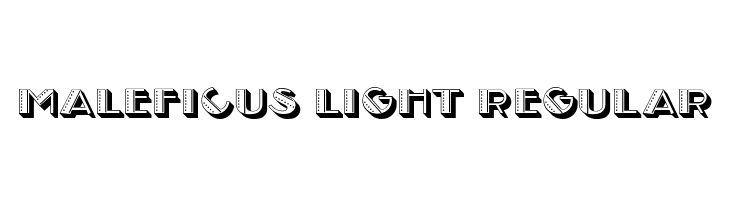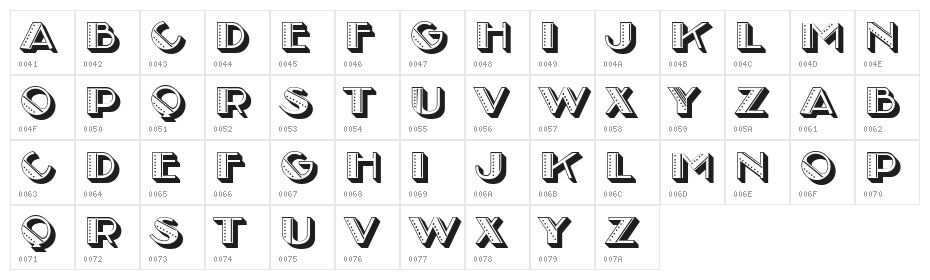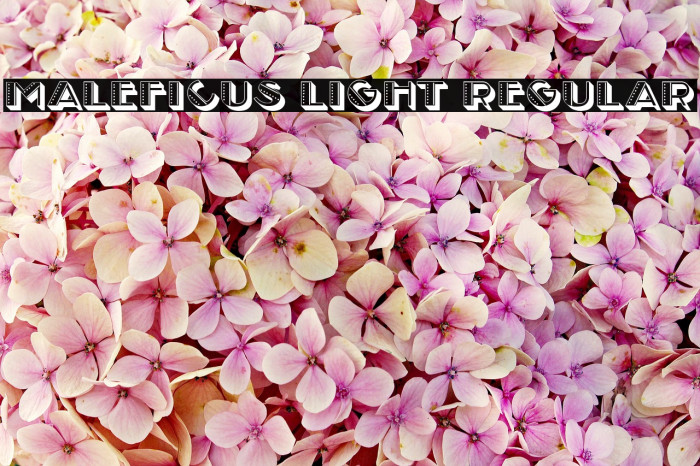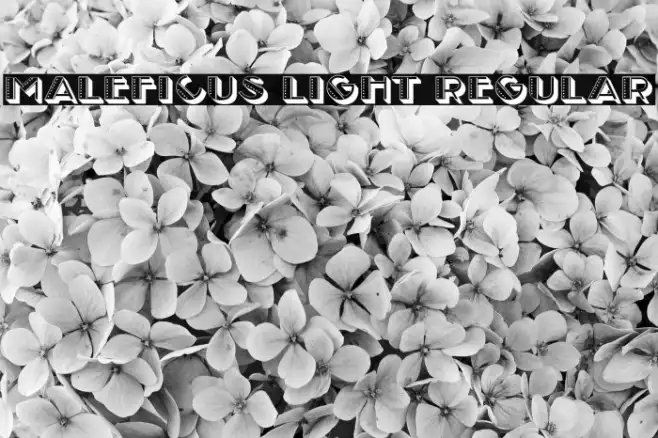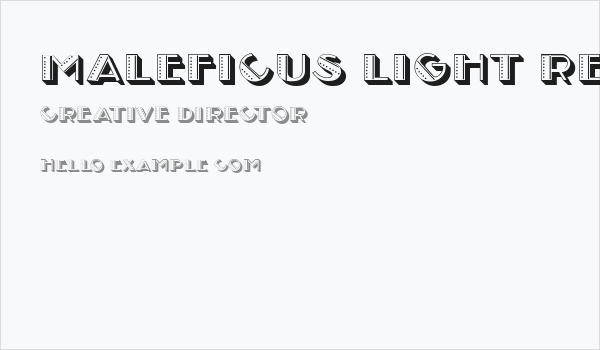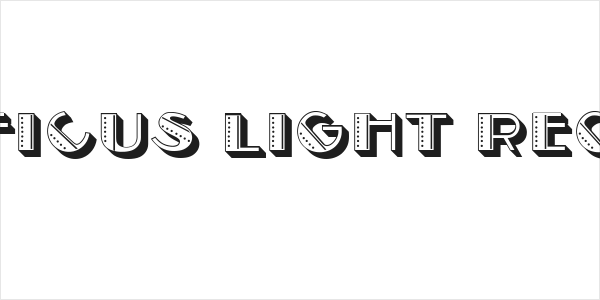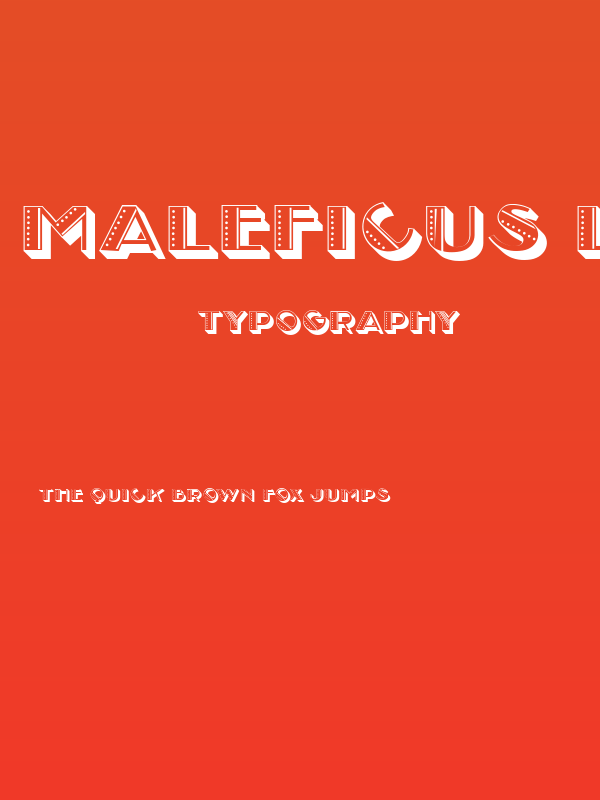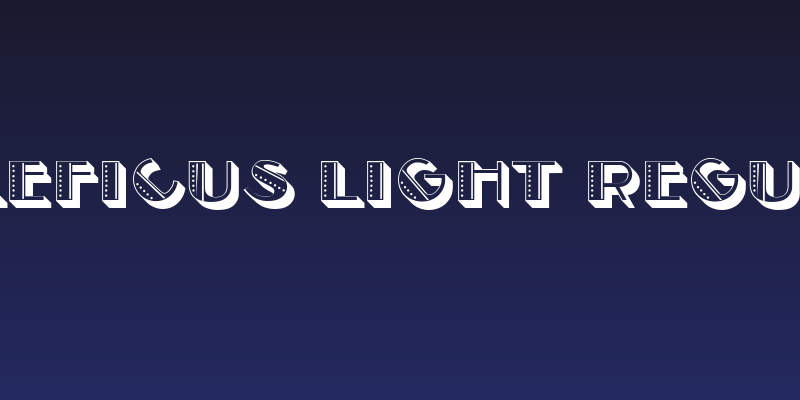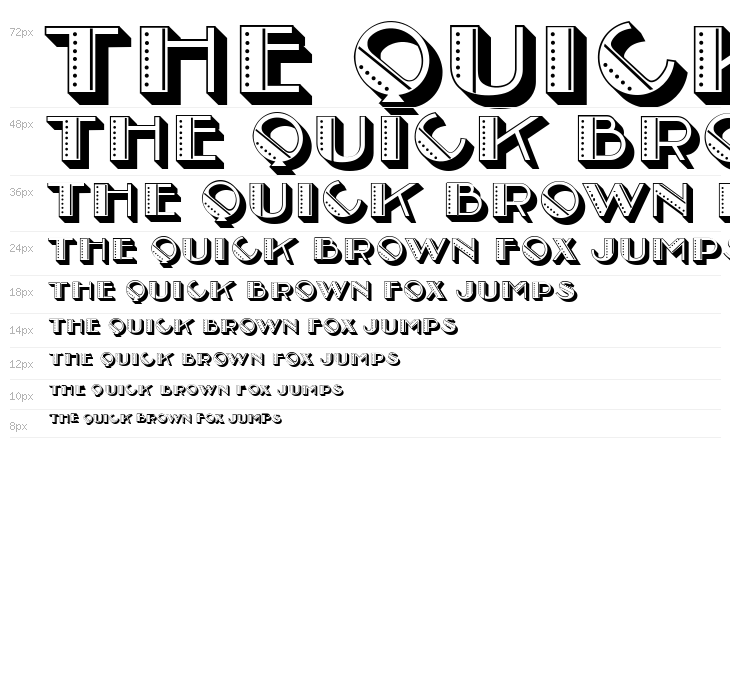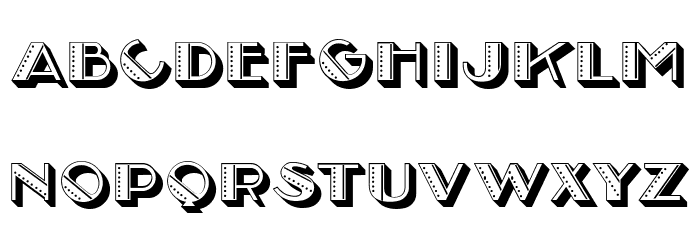
Maleficus Light Regular Font
Maleficus Light Regular Description
This font features a bold, decorative style with a three-dimensional effect that gives each character a shadowed appearance. The uppercase letters are designed with a distinct, playful flair, incorporating dotted patterns within the strokes that add a unique texture. The font's structure is geometric, with sharp angles and clean lines that contribute to its modern aesthetic. The characters are evenly spaced, ensuring readability while maintaining a visually striking presence. This typeface is ideal for creating eye-catching headlines or titles that demand attention. Its boldness and decorative elements make it suitable for projects that require a touch of creativity and flair.